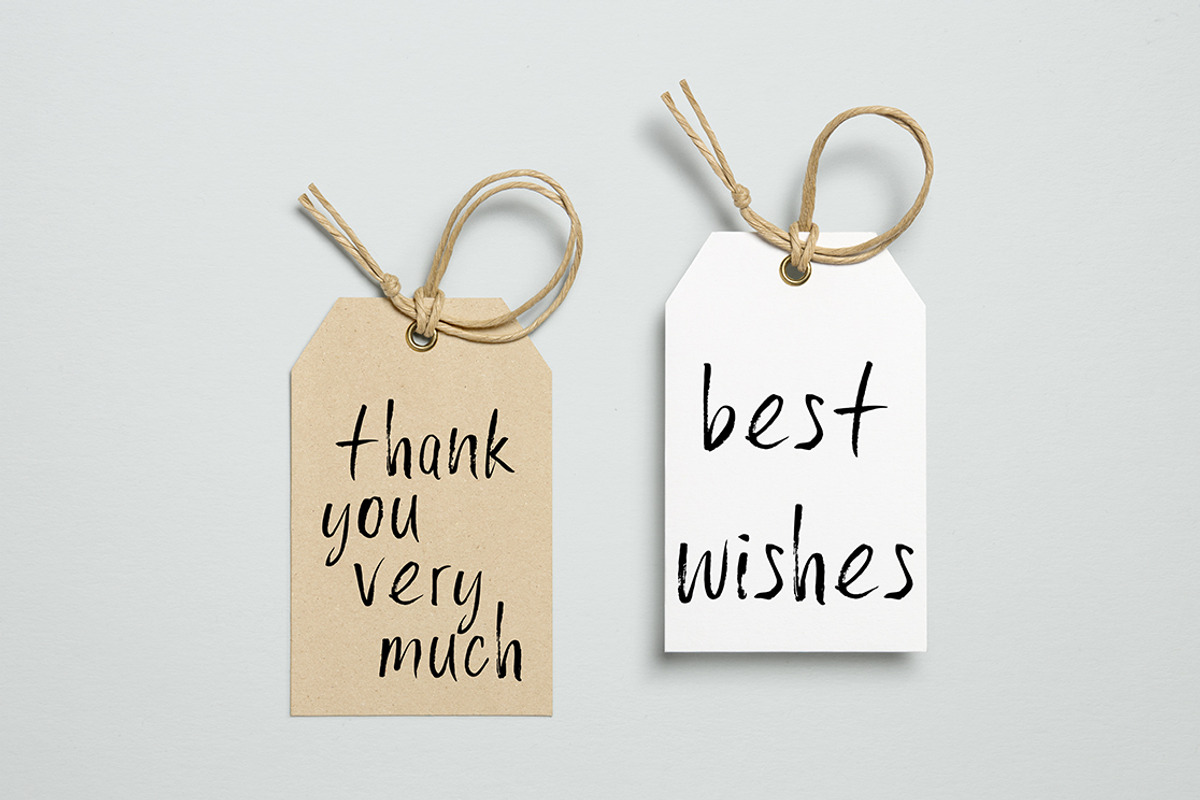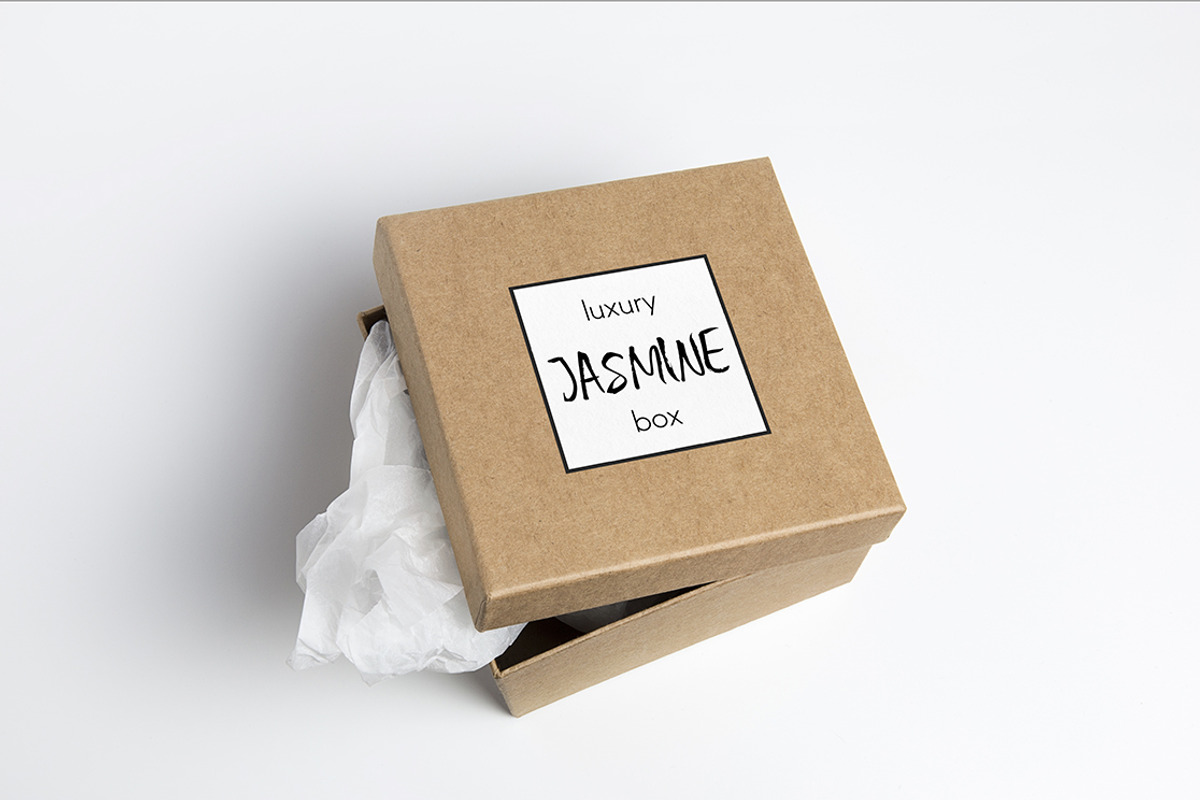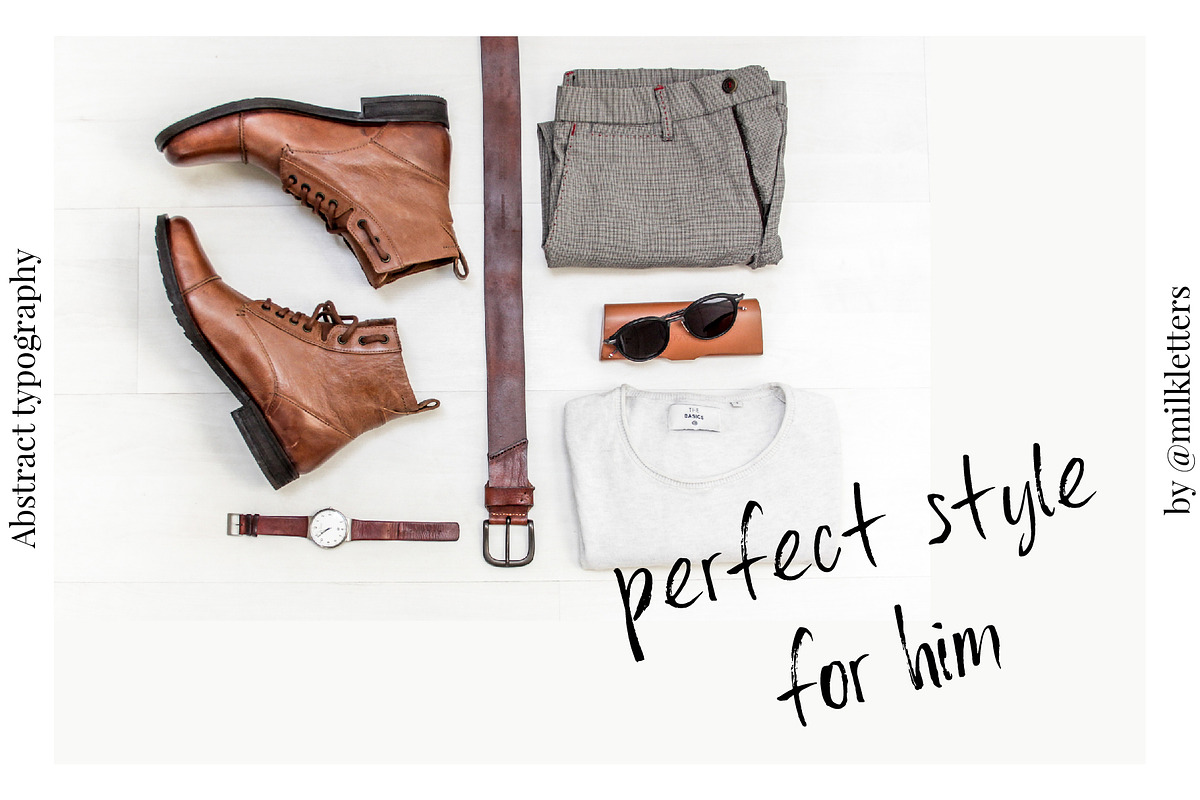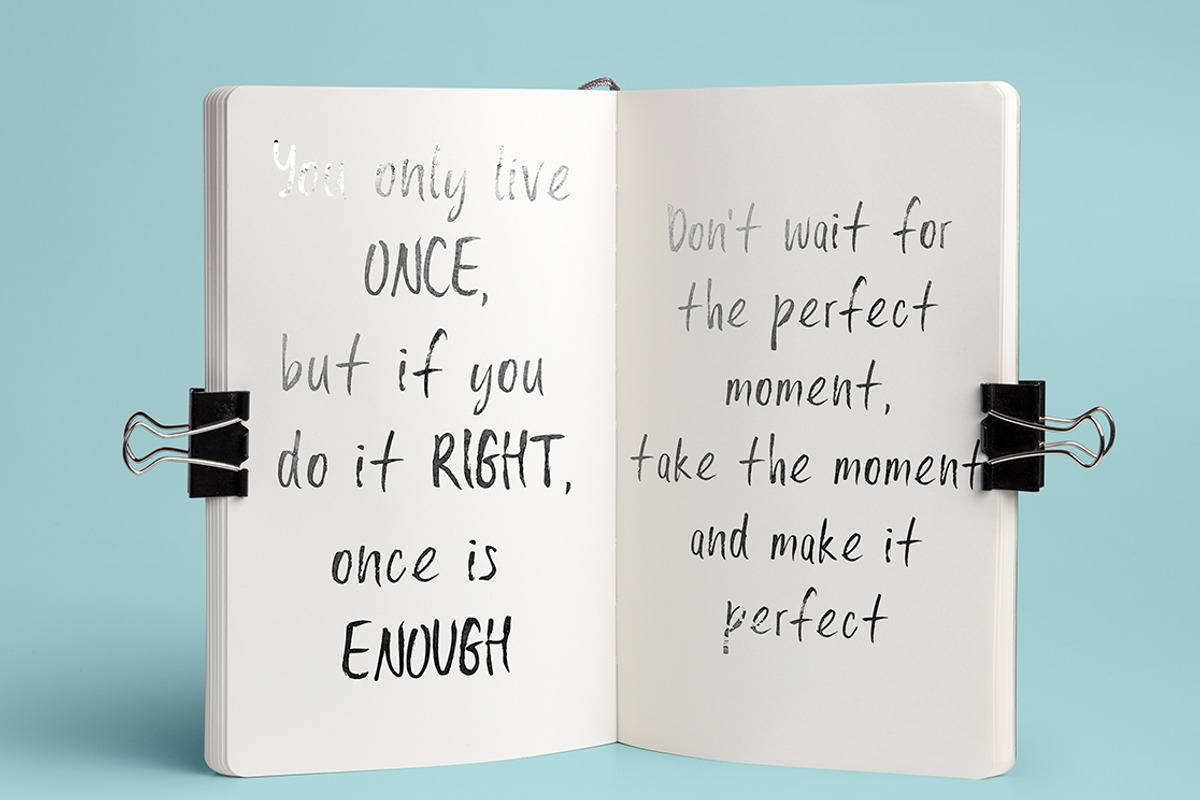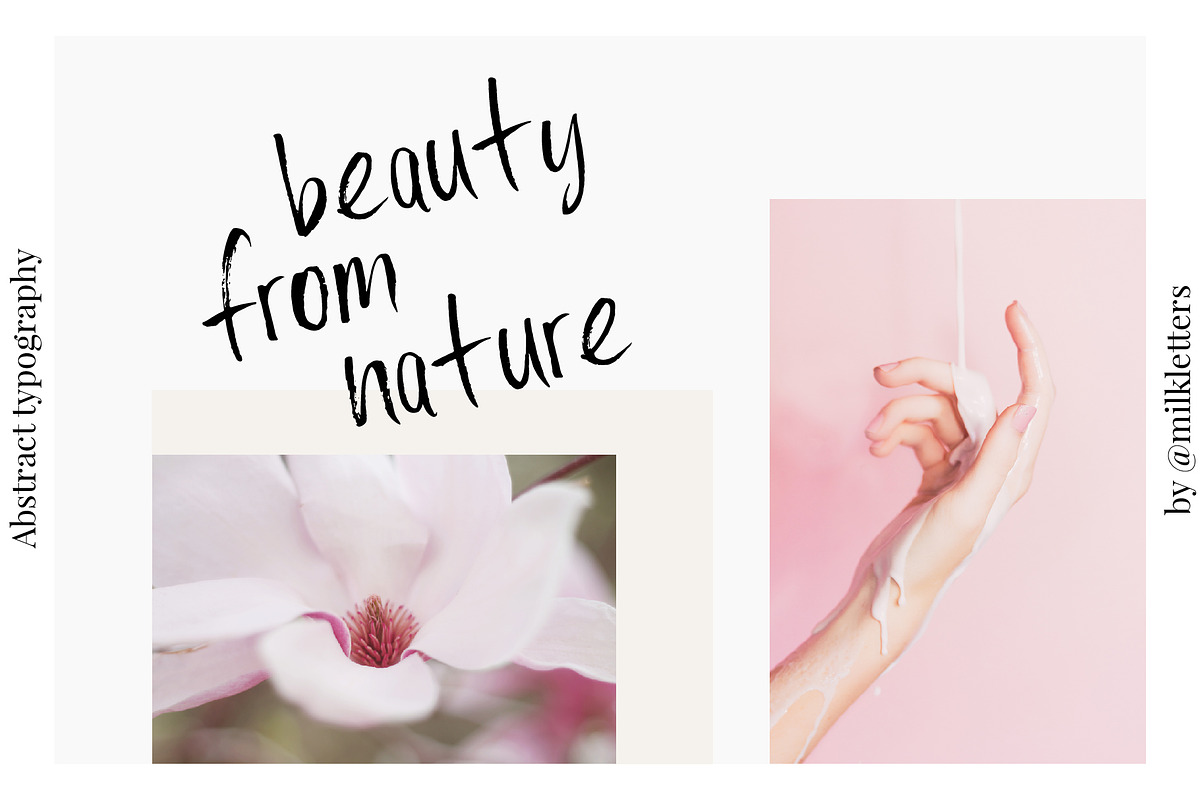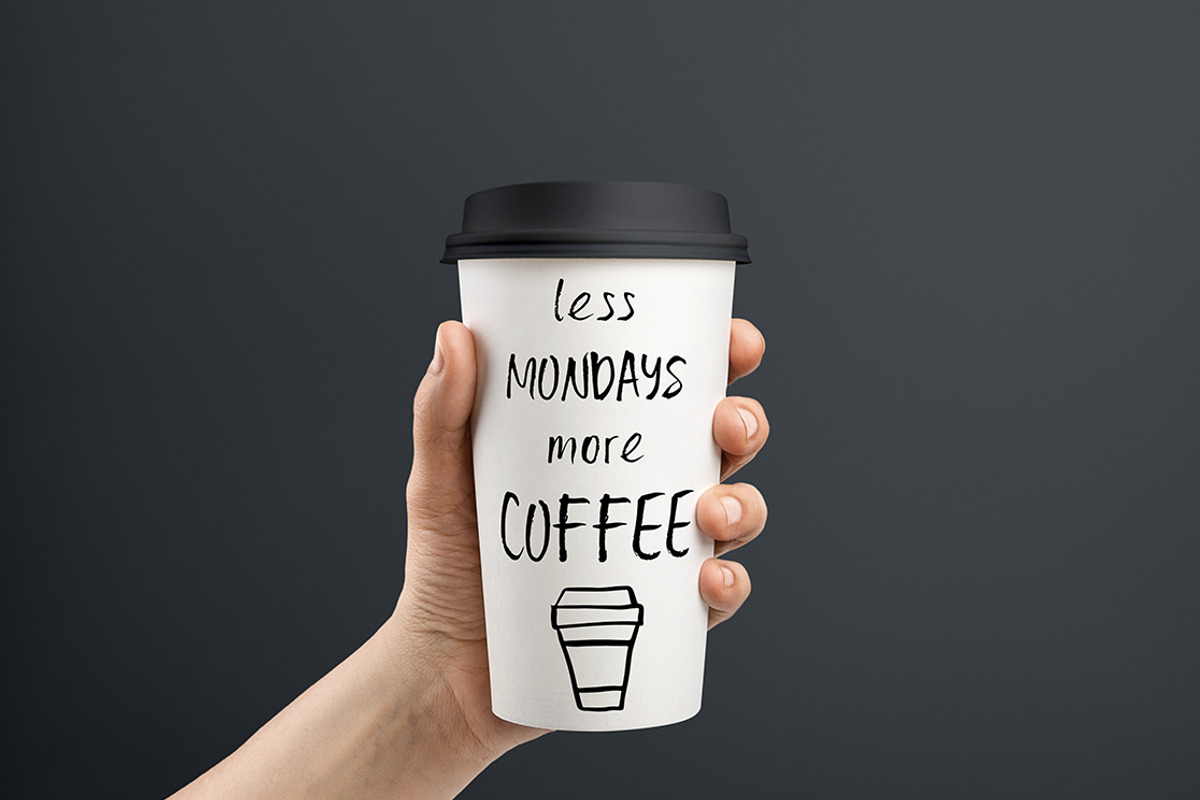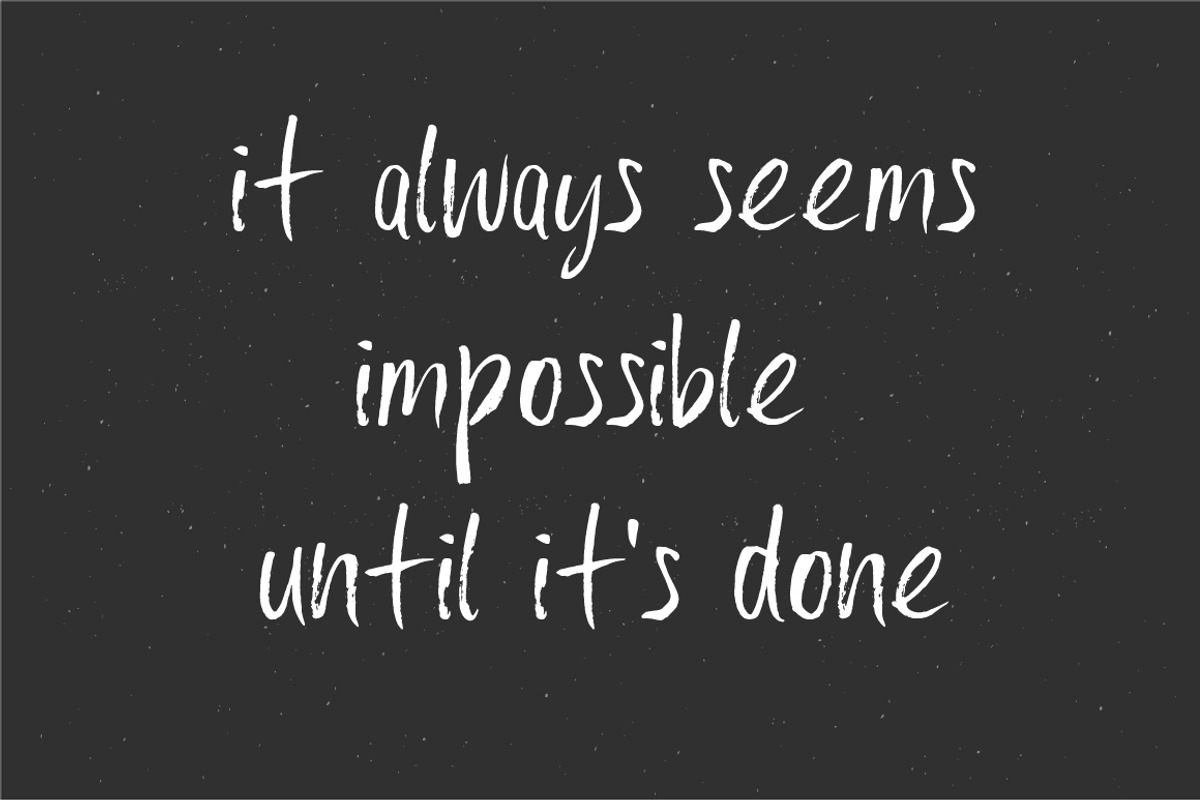
Lovely Monday Font
Lovely Monday Font by Renata Chizhikova is a font selected for branding, posters, packaging, typography.
Why Lovely Monday Font is worth a look
Lovely Monday Font by Renata Chizhikova fits naturally into Branding, posters, packaging, typography.